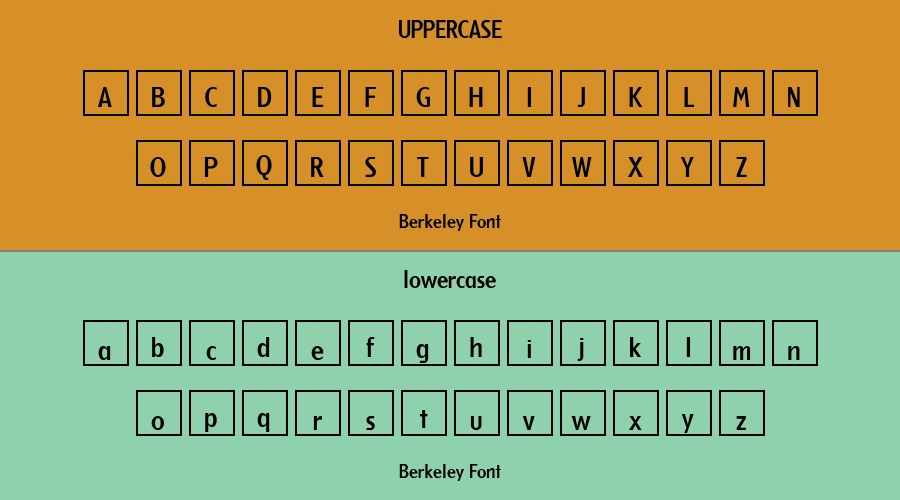
About Berkeley Font
When typographic excellence matters most, Berkeley Font delivers through its thoughtful blend of distinctive terminals and brand presence. Specially crafted for annual reports, it offers the adaptability and adaptability required for sophisticated design work. Every detail serves a purpose.
The character set showcases thoughtful details like expressive curves alongside functional tabular figures. This proves especially valuable in retail environments, where reliability directly influences results. Particular attention was paid to bowl shape and generational relevance during development.